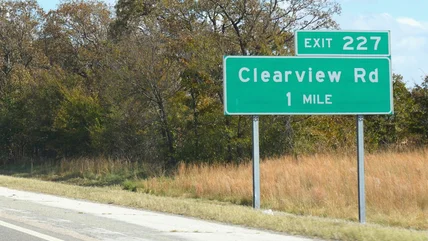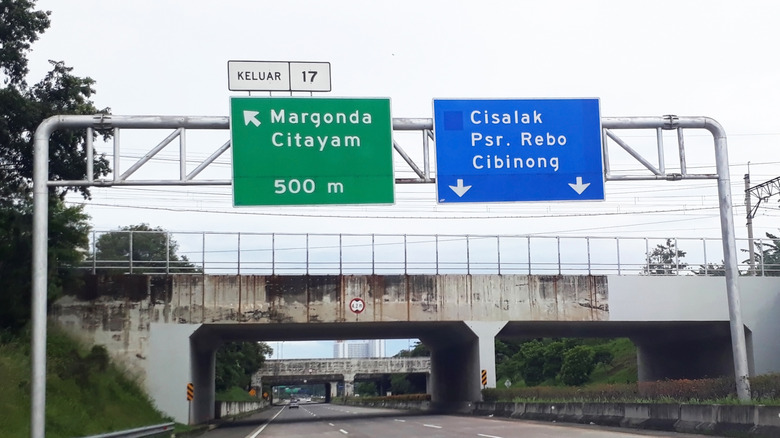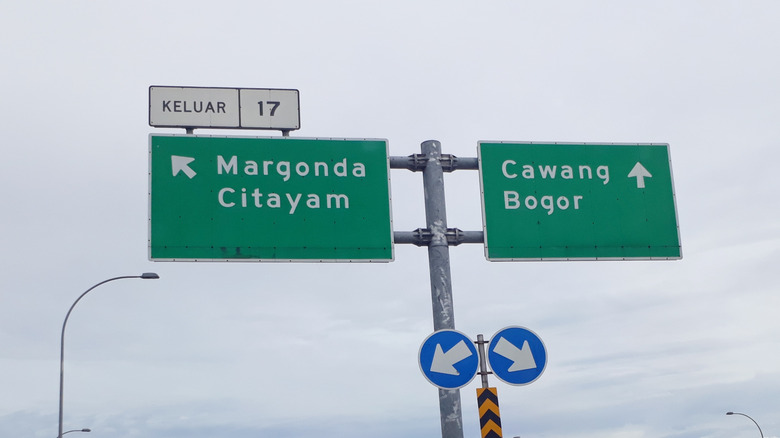
Do All Official U.S. Road Signs Use The Same Font And Design?
You don't have to have held an official job to know that Uncle Sam spends big money keeping things uniform — even road signs. Take a trip across the country, and you're sure to see three-pointed, shield-shaped signs representing interstates, route signs that resemble the badge on a cartoon cop, blue signs telling you about upcoming services, and green highway signs sending you just about everywhere else. As for the text on those signs, it's all familiar typeface guiding you through cities and across state lines. Or is it?
At its core, the choice of font on just about every highway sign in the country boils down to an ongoing debate over two primary typeface systems. In one corner, it's the time-honored Highway Gothic. In the other, it's the (arguably) improved Clearview. Look close enough, and you'll find some differences between the two as you head off, as Simon & Garfunkel sang, to look for America.
The choice of font came down to Highway Gothic versus Clearview
Before President Dwight D. Eisenhower signed the Federal-Aid Highway Act in 1956, drivers could still voyage across the United States on a network of roads, navigating via road signs just as you can today. Those signs, however, were an overhead and roadside mishmash of fonts, shapes, and colors. When 70-mph highway speeds were mostly science fiction, the chaotic signage was fine. Unsightly, sure. But legible enough for the drivers of the time at the speeds of the time.
As speeds increased, though, the Federal Highway Administration (FHWA) – the same organization that insisted states stop putting jokes in highway signage – had a way to clean things up. The agency reached into its bag of tricks and pulled out Highway Gothic, a modified version of the Gothic font you'd find in your font dropdown. So, from 1948 on, the FHWA started plastering Highway Gothic on official road signs across the U.S. That is, until reflective signage presented a unique safety concern. Here comes your two-dollar word of the day: "halation." It refers to the apparent fuzziness surrounding luminous objects, like street lamps or, you guessed it, brightly illuminated Highway Gothic lettering due to reflective sheeting covering the signs.
Enter Clearview, the font brainchild of Meeker & Associates and Terminal Design, Inc. At a glance, Clearview looks an awful lot like Highway Gothic. But there are differences. For starters, the newer font flattened out the little slanting shapes on letters like l, d, t, and k. Interior spaces are larger, too, to help combat light-based distortion. There's also a scale difference; lowercase letters in Clearview are almost as tall as the capitalized ones. Weird? Sure. Legible? You betcha. Even with the improvement efforts, though, neither font won a decisive victory at the federal level.
The highway font grudge match with no official solution
Designers James Montalbano of Terminal Design, Inc. and Donald Meeker developed Clearview in the 1990s. Still, the perhaps-too-obviously named Clearview didn't get approval from the FHWA for use on the nation's signs until 2004. But it wasn't a sweeping overhaul of the country's road signs. For good reason, too. There are around 4.2 million miles of the American highway network out there; changing all of those signs would be heartbreakingly expensive. Instead, (and sensibly so) states that had already adopted Clearview for its road signs were allowed to keep using it.
So, that's it. The bureaucratic machine that is the government had its solution, right? Not so much. In 2016, the FHWA pulled its approval for the newer font. However, the highway administration reinstated its approval for Clearview just two years later, allowing states to replace signage fonts with Clearview as long as the signs adhered to other design rules.
As you embark on your much-needed ultimate summer road trip, take a look at the highway signage. Are you driving under the old familiar font of Highway Gothic? Or are you guided by Clearview? Either way, it'll be a long time before every official road sign in the U.S. looks exactly the same.